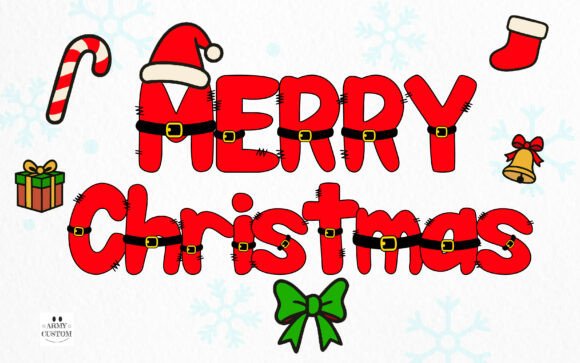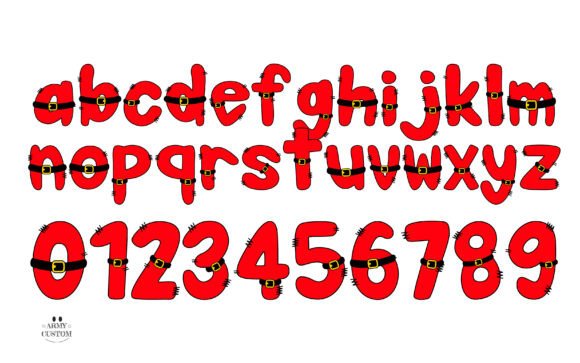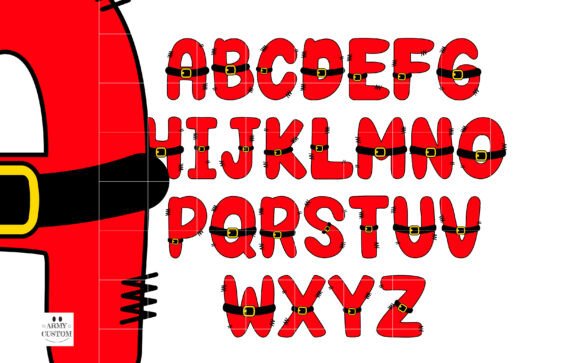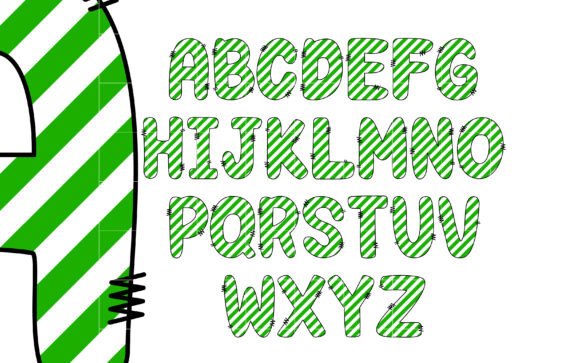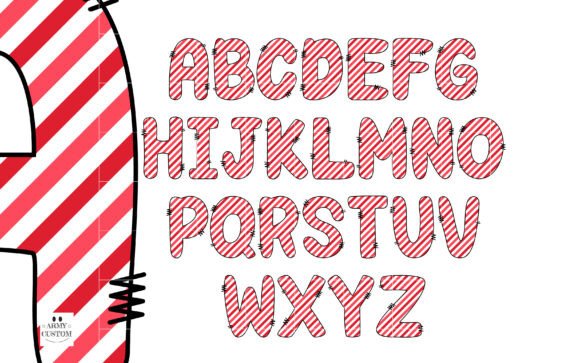
Introducing Christmas Bundle Font: The Ultimate Holiday Design Companion
Are you looking for a fun and festive font to add a touch of holiday cheer to your designs? Look no further than the Christmas Bundle Font! This vibrant color font is packed with creative charm and cheerful energy, making it the perfect addition to your holiday design projects.
What is Christmas Bundle Font?
Christmas Bundle OTF is a specially designed color font that transforms each letter into a holiday celebration. The font includes A-Z, a-z, and 0-9 characters in both OTF and PNG formats, making it versatile and easy to use for a wide range of projects, from sublimation and print-on-demand products to holiday crafts, cards, and kid-friendly activities.
Unique Features of Christmas Bundle Font
So, what makes the Christmas Bundle Font stand out from other holiday fonts? Here are a few unique features that set it apart:
- Playful Pattern Diversity: Each character in the font features a unique and playful pattern, ensuring that your designs will never look repetitive or boring.
- Themed Decorations: From Santa suits with buckled belts to candy cane stripes, gingerbread swirls, snowman scarves, wrapped gifts, ornaments, holly berries, chimneys, and evergreen trees, every character is carefully designed to bring the holiday spirit to life.
- Colorful and Decorative: This font is not just decorative – it’s an all-in-one bundle of joy, ready to elevate your holiday designs with personality and color.
Design Possibilities with Christmas Bundle Font
The Christmas Bundle Font is incredibly versatile and can be used for a wide range of design projects, including:
- Cricut Designs: Create custom vinyl decals, iron-on designs, and paper crafts with ease.
- Printable Cards: Design personalized holiday cards, gift tags, and invitations that will make your loved ones feel special.
- Sublimation and Print-on-Demand Products: Add a touch of holiday cheer to your sublimation and print-on-demand products, such as mugs, t-shirts, and tote bags.
- Holiday Crafts: Use the font to create festive holiday crafts, such as paper snowflakes, garlands, and decorations.
Why Choose Christmas Bundle Font?
With so many holiday fonts available, why choose the Christmas Bundle Font? Here are a few reasons why designers and crafters love this font:
- High-Quality Design: Each character is carefully designed to ensure that your projects look professional and visually appealing.
- Time-Saving: With the Christmas Bundle Font, you can create stunning holiday designs in no time, saving you hours of design time.
Tips and Tricks for Using Christmas Bundle Font
Here are a few tips and tricks to help you get the most out of the Christmas Bundle Font:
- Experiment with Different Colors: Don’t be afraid to experiment with different color combinations to create unique and eye-catching designs.
- Mix and Match Characters: Mix and match different characters to create interesting and dynamic designs.
- Use with Other Holiday Elements: Use the Christmas Bundle Font with other holiday elements, such as graphics and textures, to create stunning holiday designs.